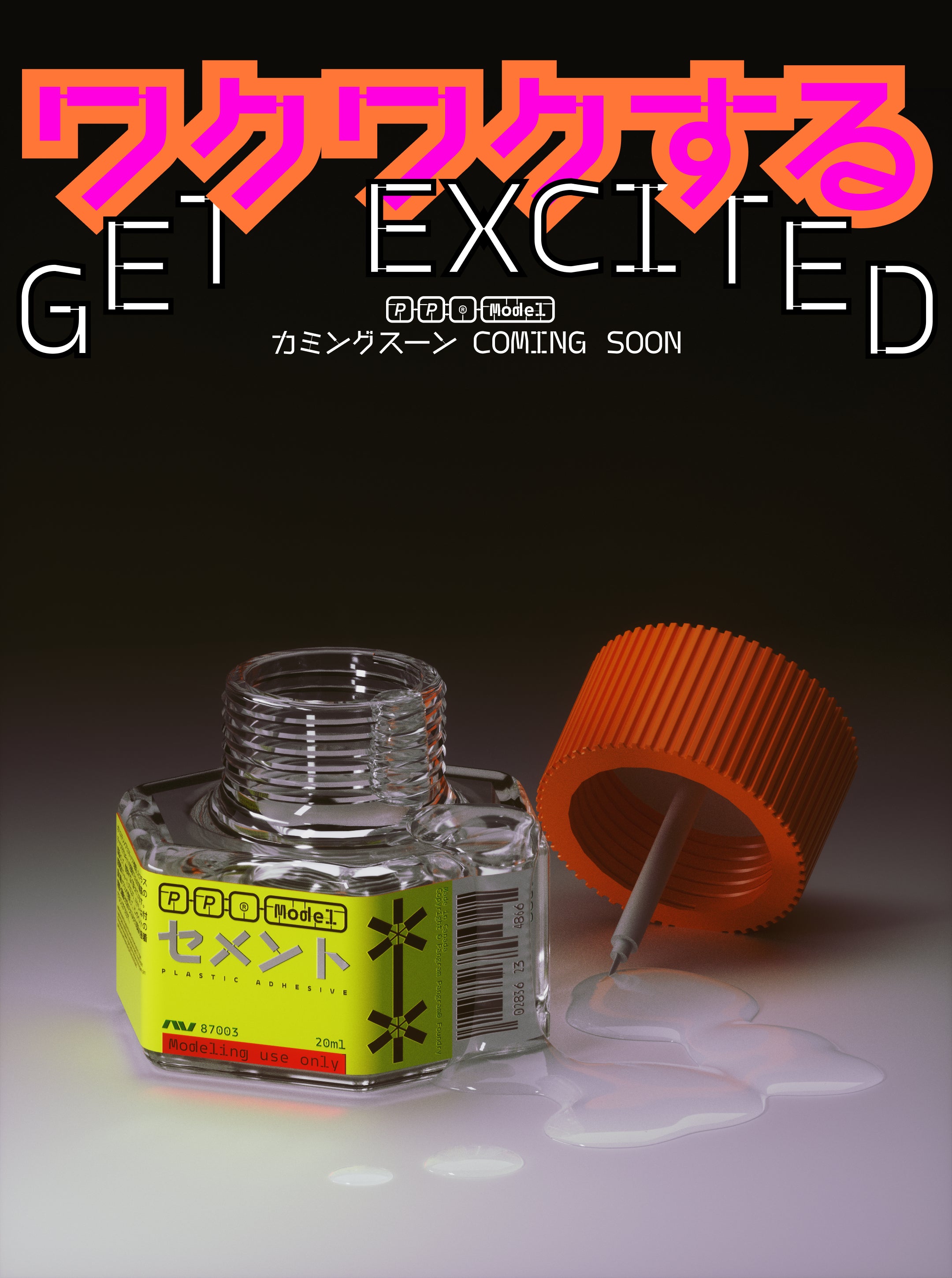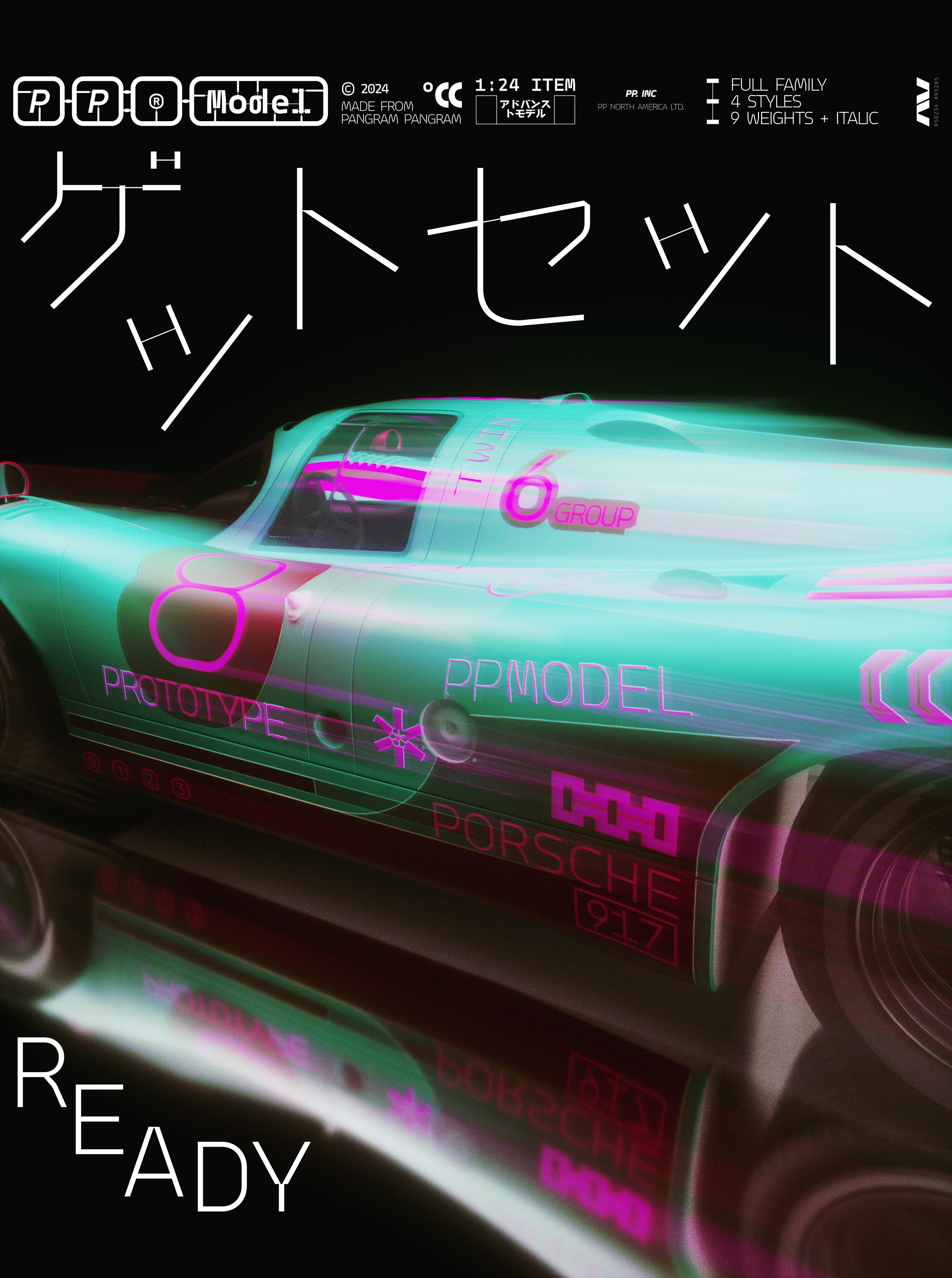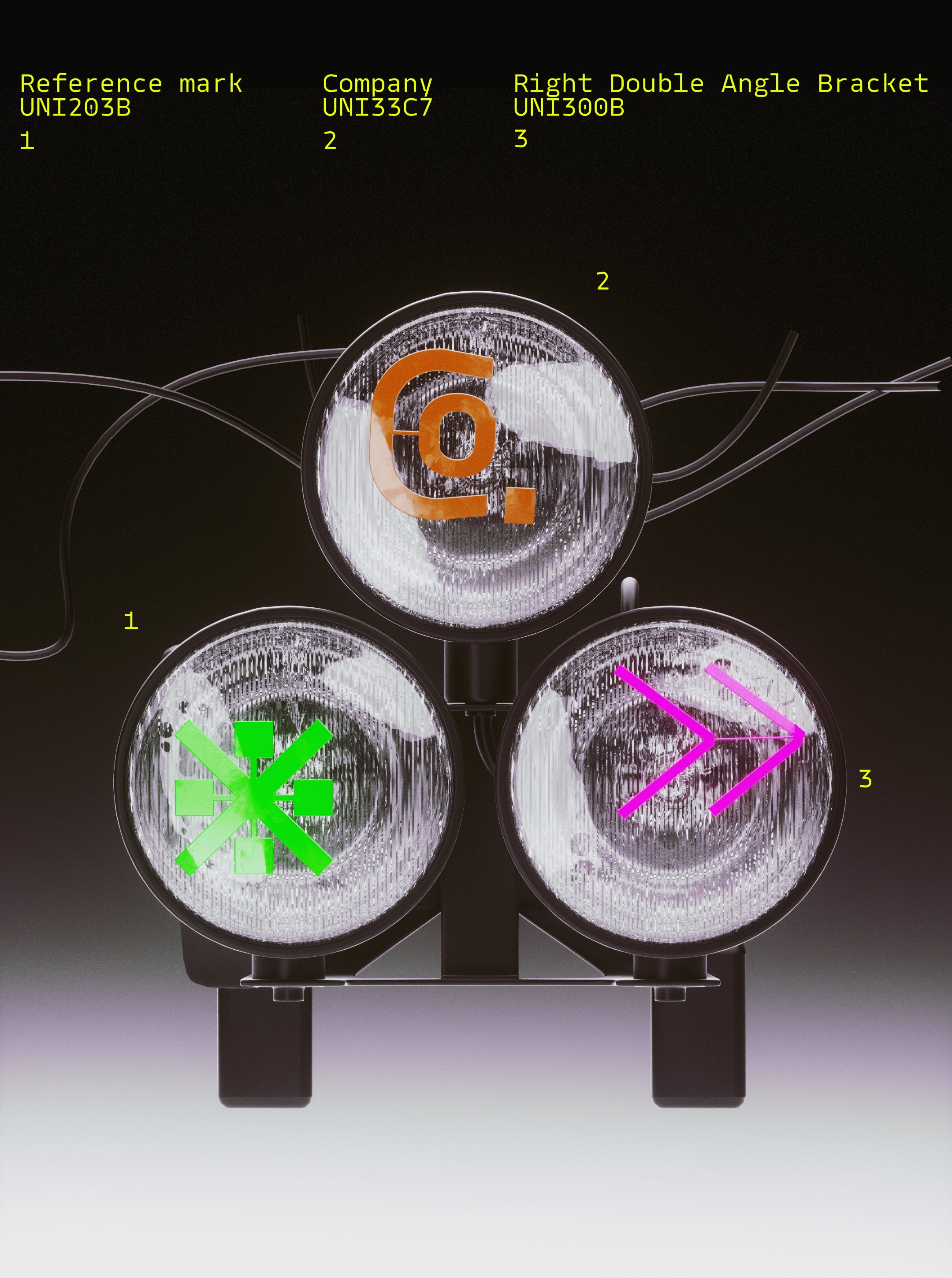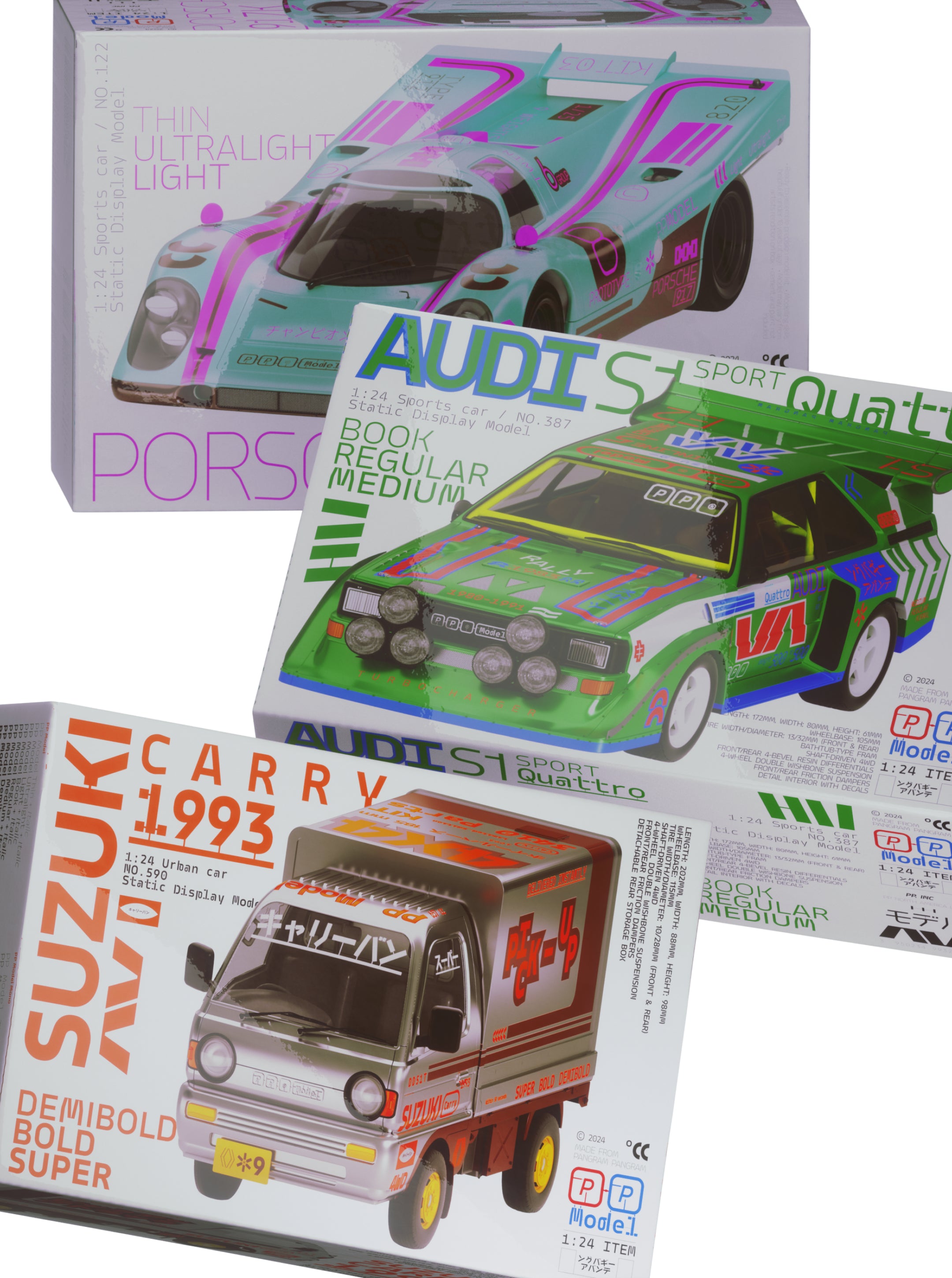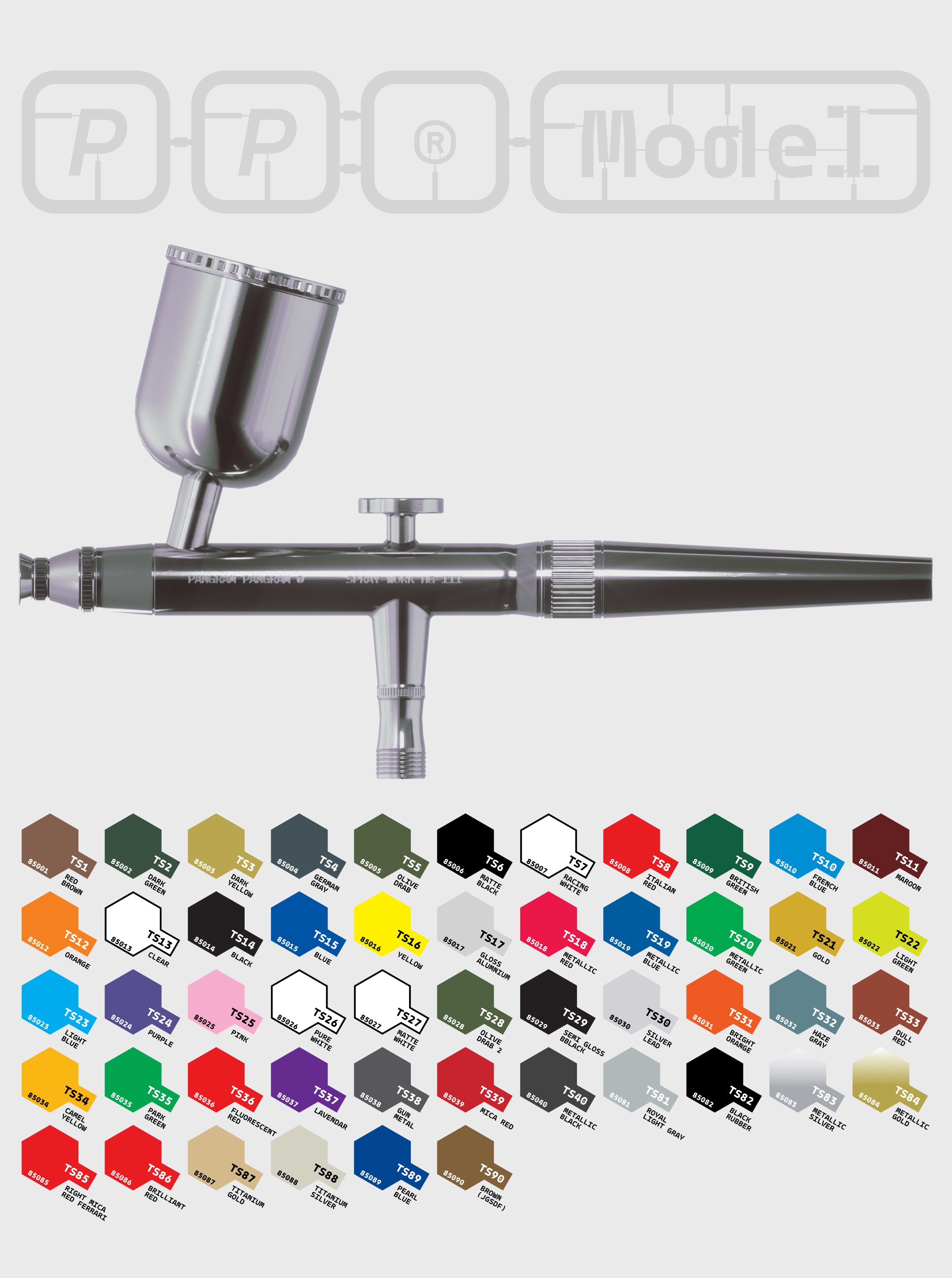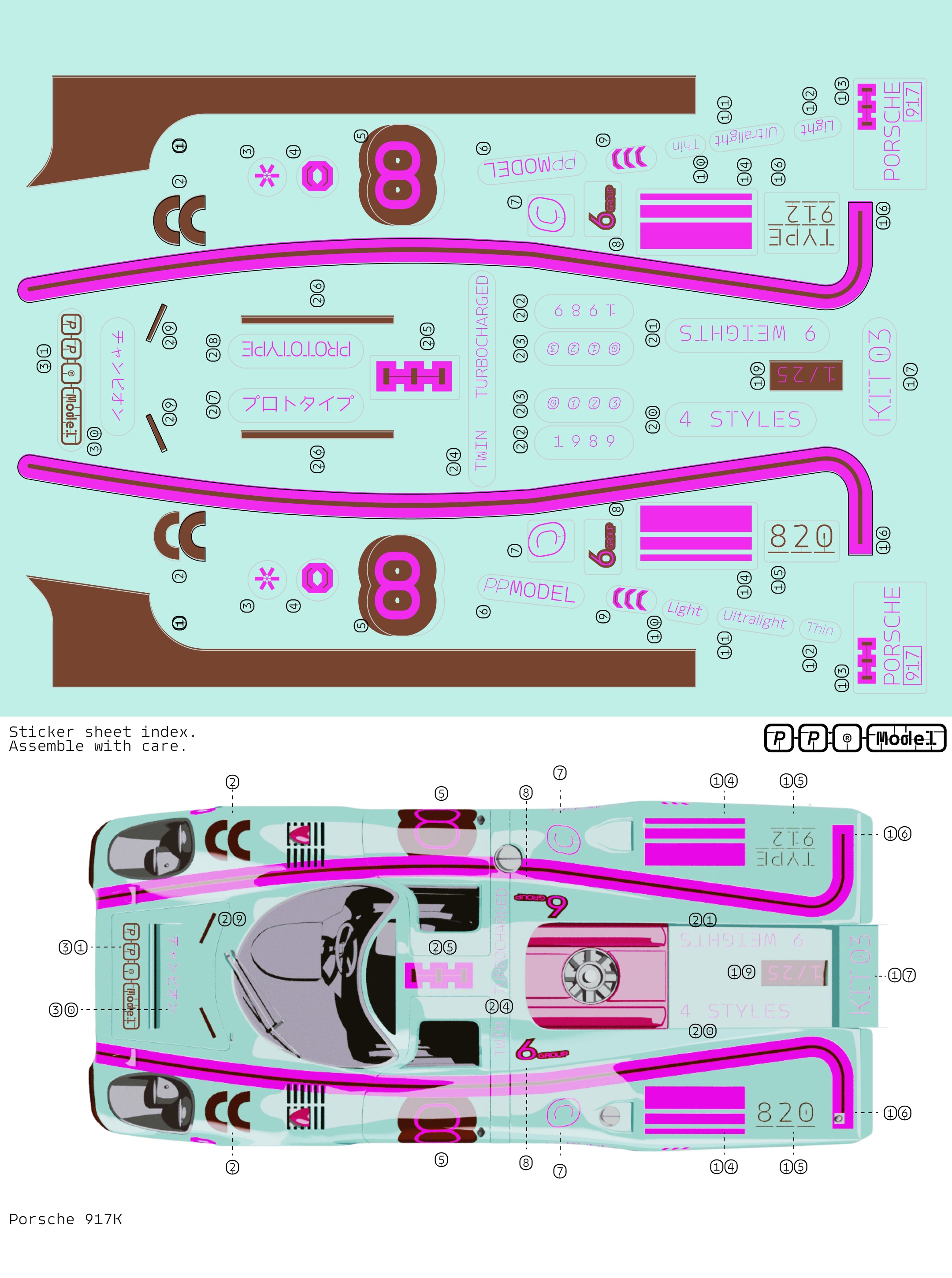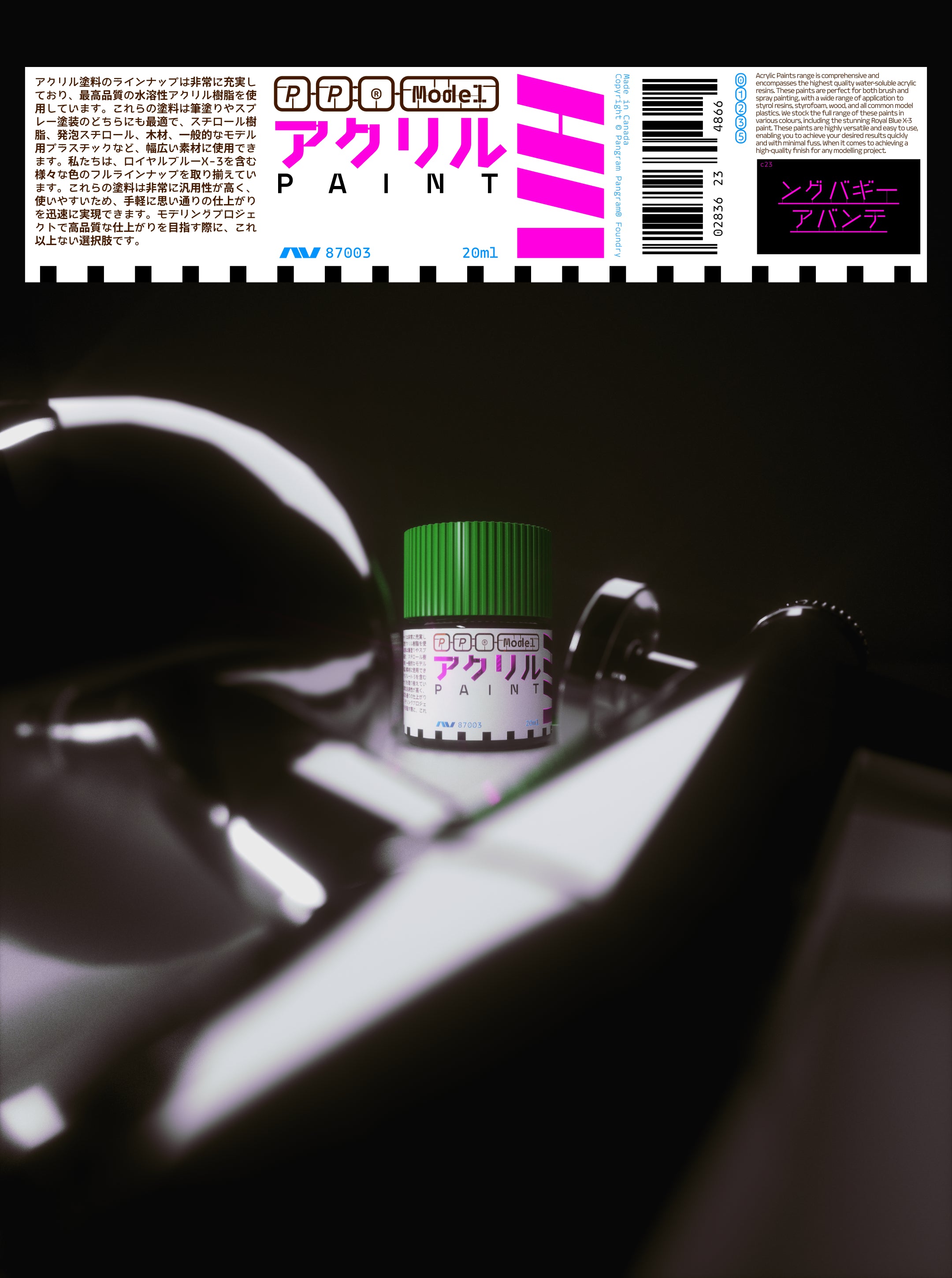
Model
Model pays tribute to the world of plastic model kits, drawing inspiration from the iconic Japanese brand Tamiya.
Inspired by the iconic Japanese brand Tamiya.
Model pays tribute to the world of plastic model kits, drawing inspiration from the iconic Japanese brand Tamiya. Renowned worldwide for its highly detailed and precise assembly kits, Tamiya’s legacy serves as the foundation for this design, celebrating the meticulous art of model-making. The typeface blends nostalgia with modern precision, capturing the essence of the assembly process through its clean, modular forms and mechanical aesthetic.
PP Model features a range of four families, from the default Model version to the monospaced variants and experimental Plastic styles. Its design fosters creativity, offering typographic options that embody the concept at varying levels, emulating the connected components of model kits in their forms. In total, the typeface includes 72 fonts, available in both upright and italic styles, featuring extensive Latin support, the Japanese alphabets Hiragana and Katakana, Japanese punctuation, and measurement characters that are rarely found.